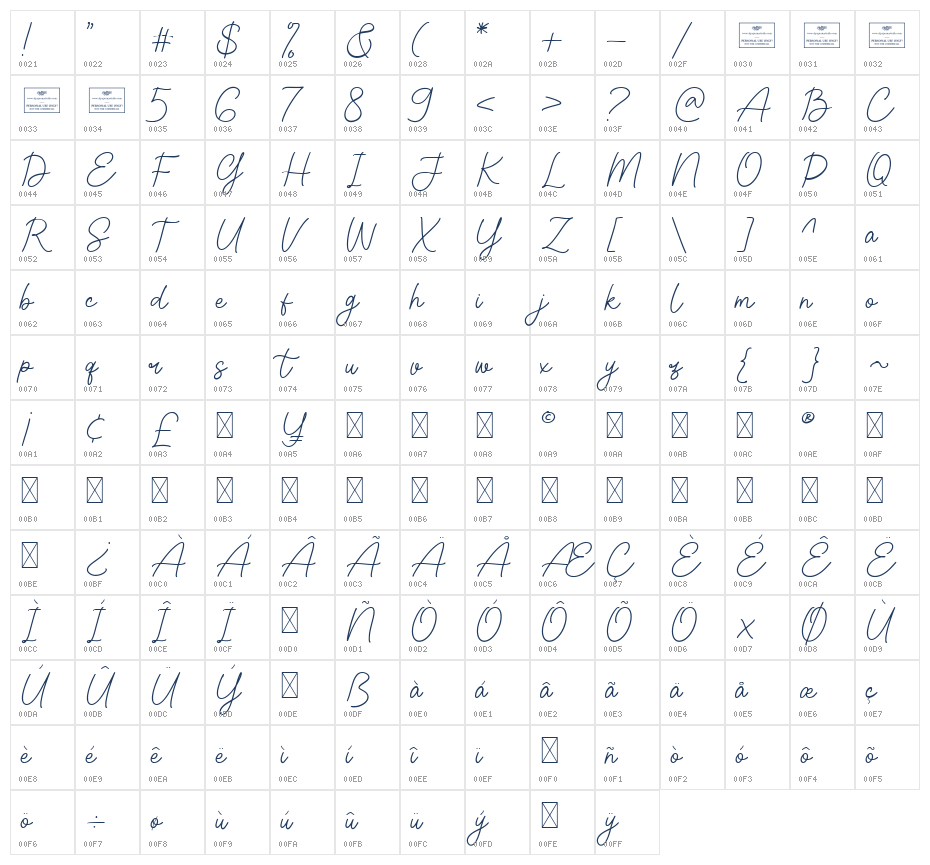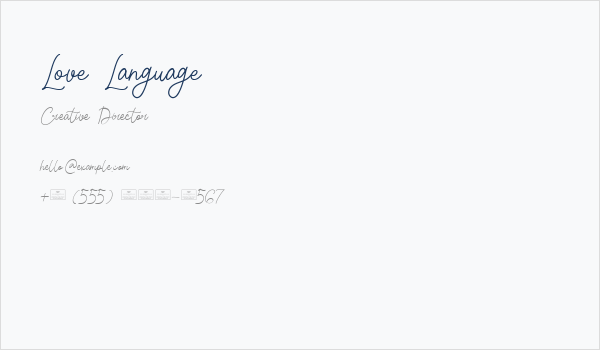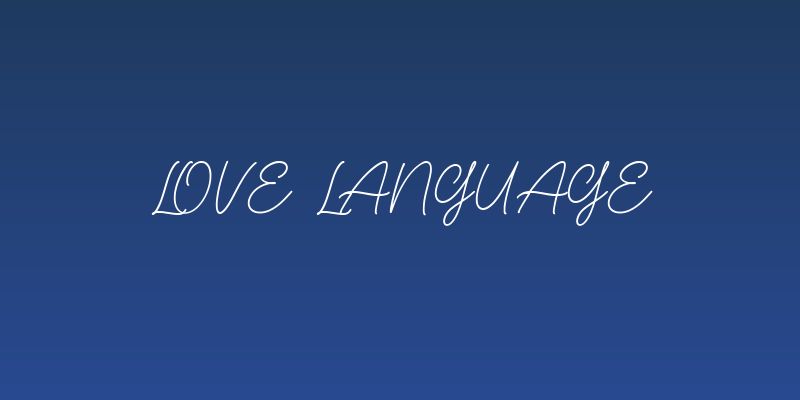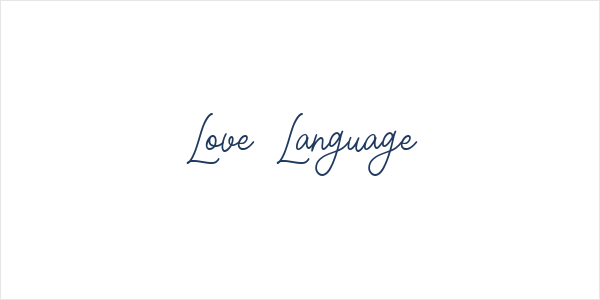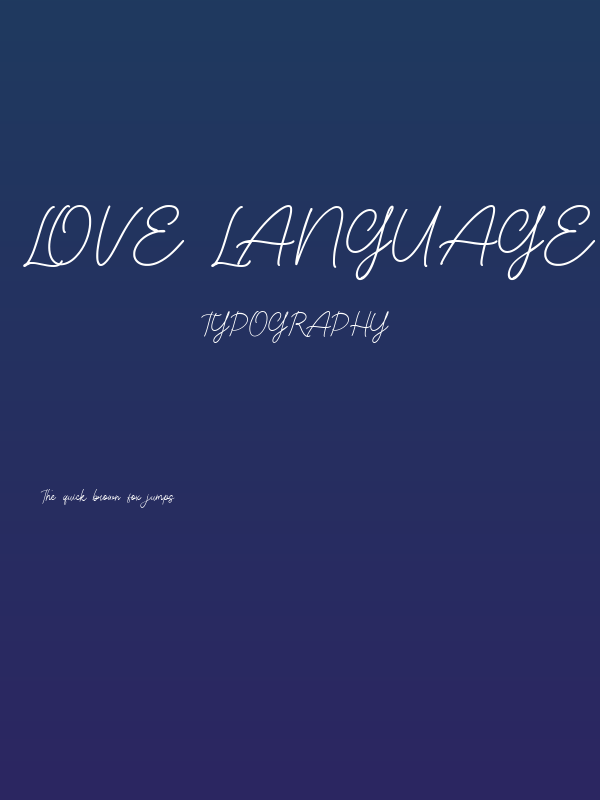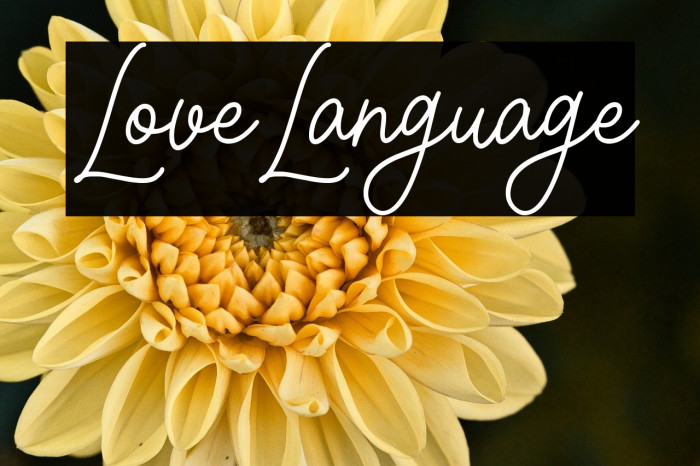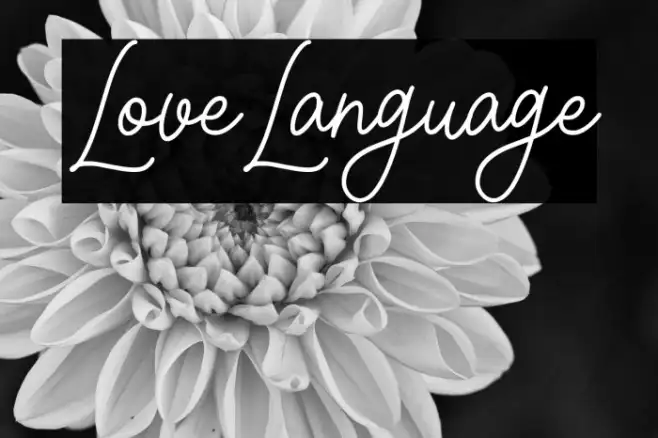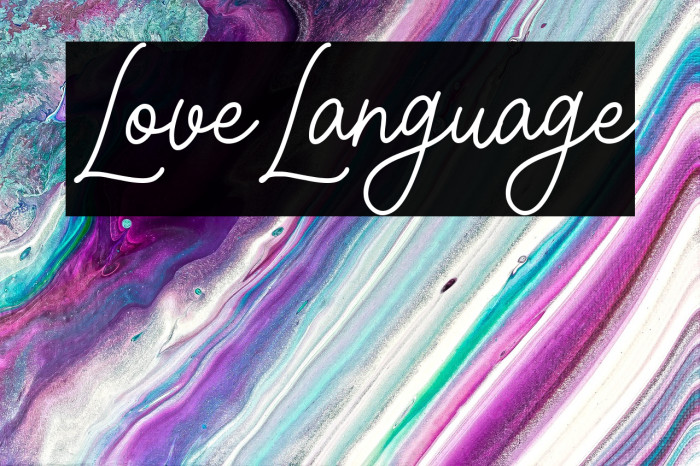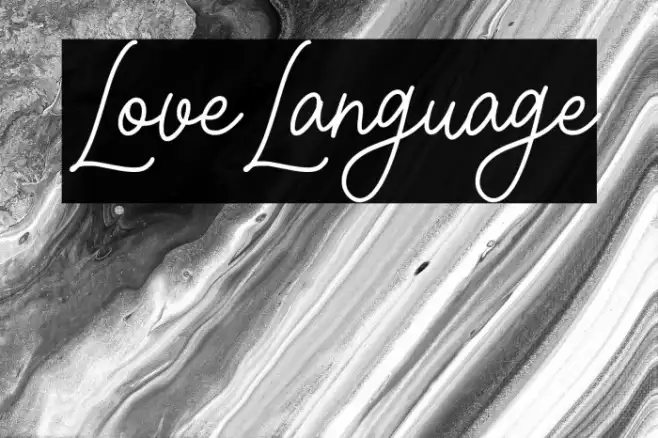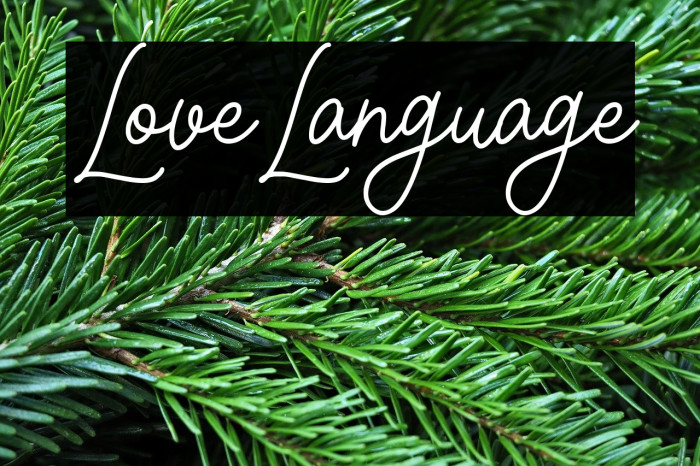
Love Language Font
Love Language Description
A delicate, cursive script font with a handwritten, elegant style characterized by thin, flowing lines and a slightly slanted appearance.
| Overall Style | Elegant, Personal, Handwritten |
| Use Case | Headlines, Invitations, Personal branding, Decorative text |